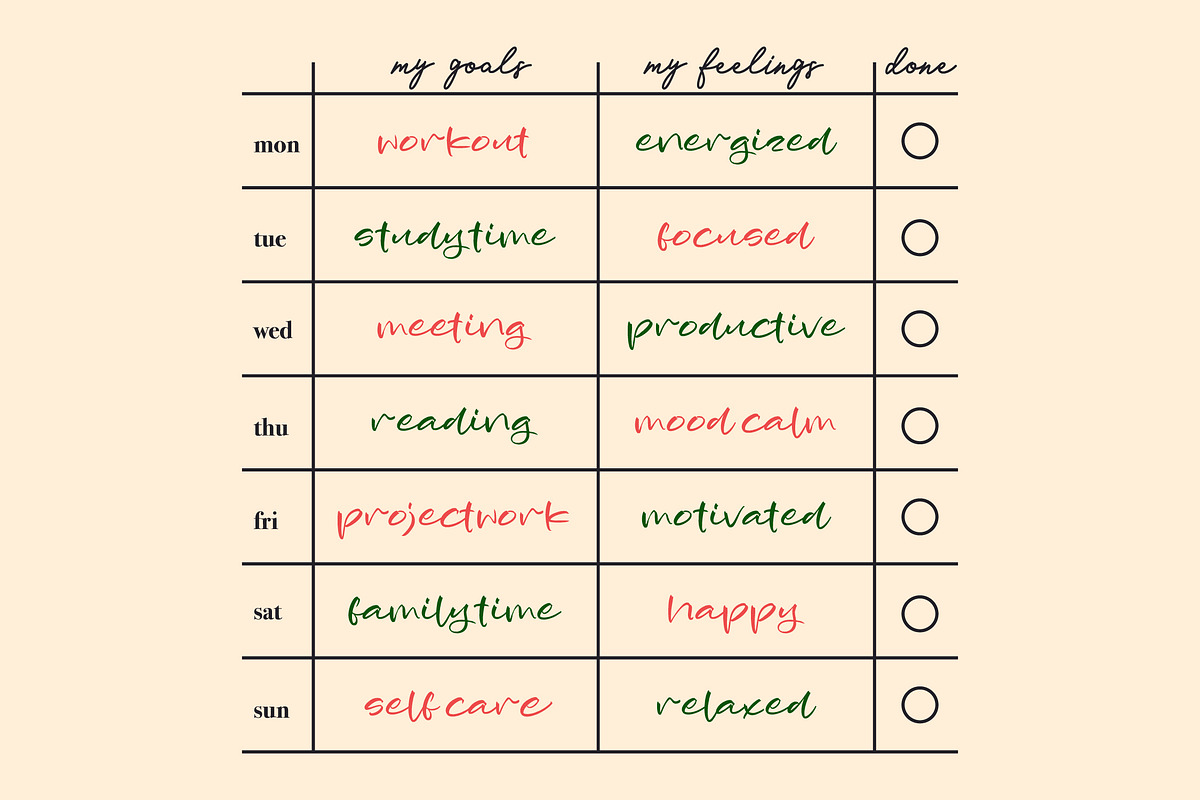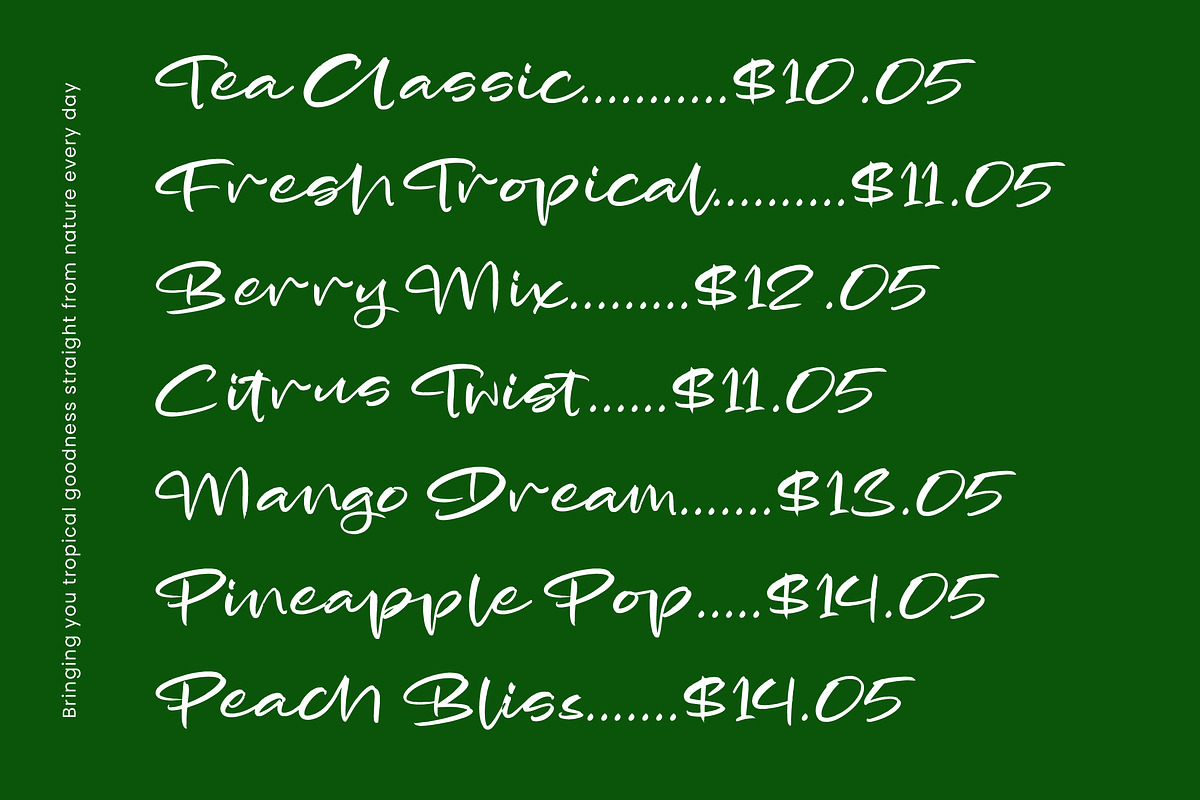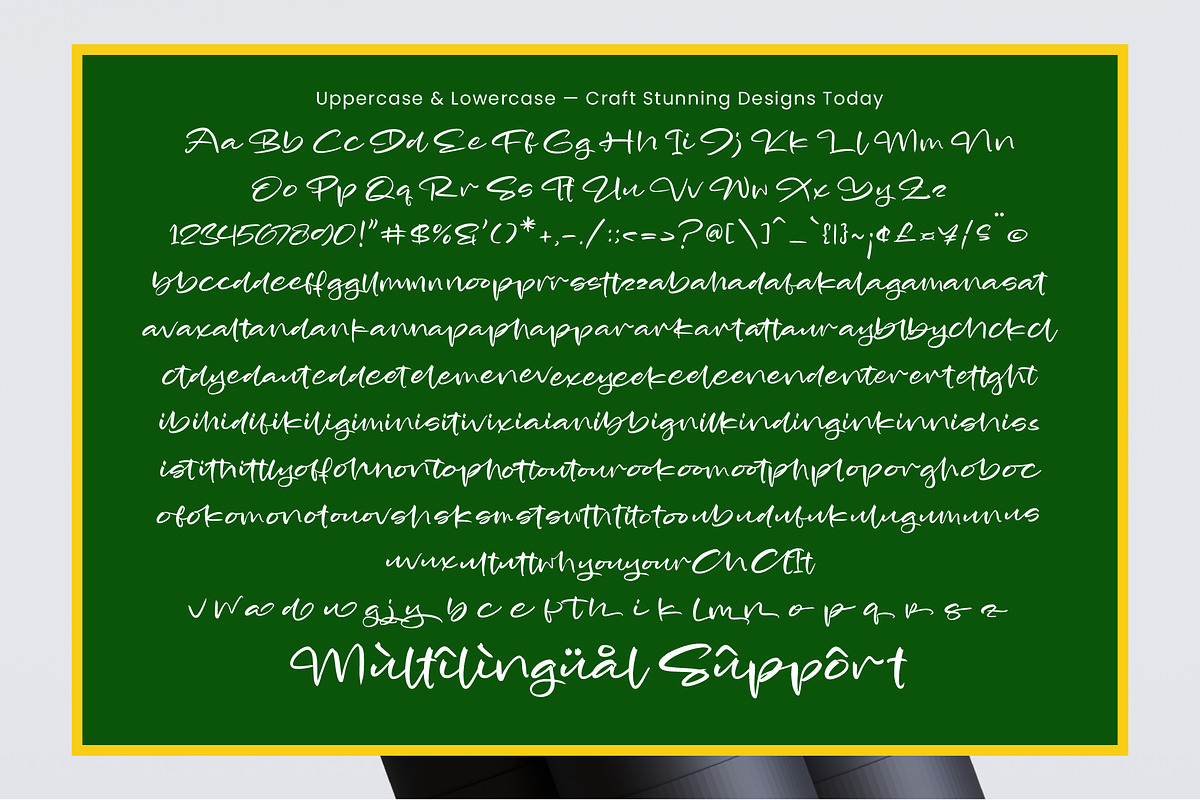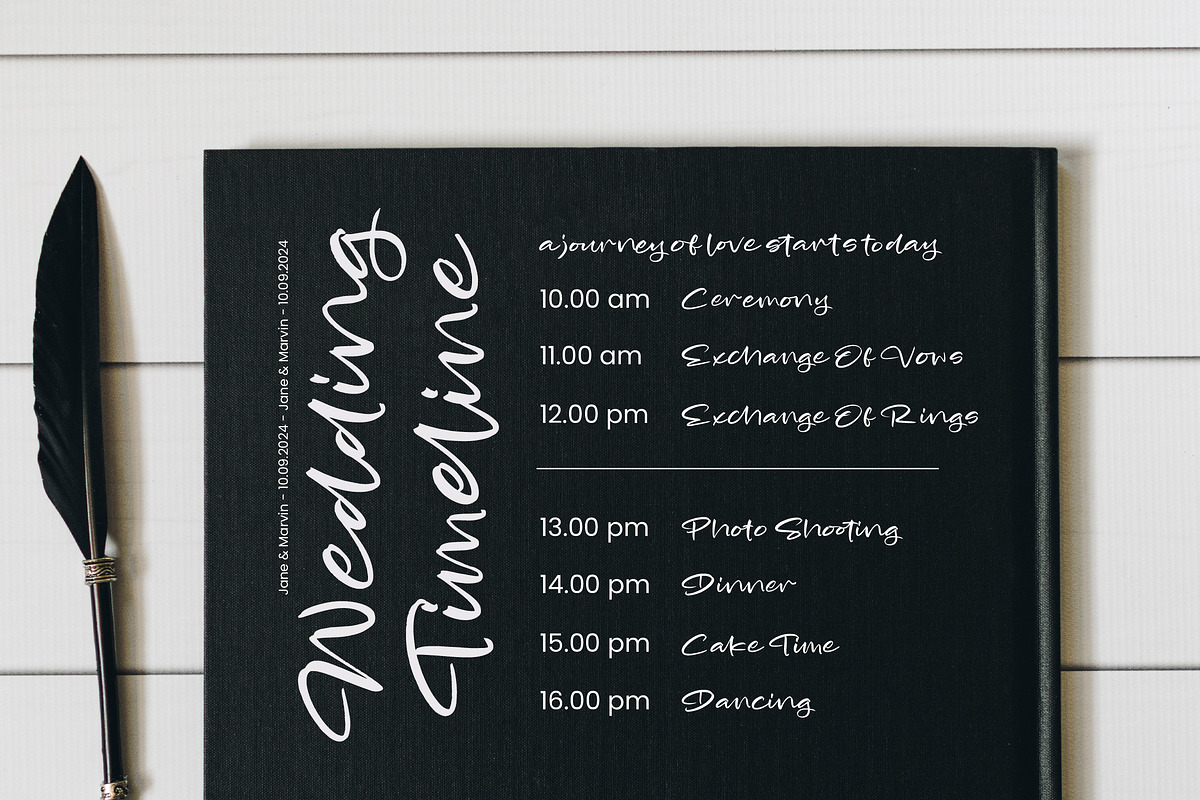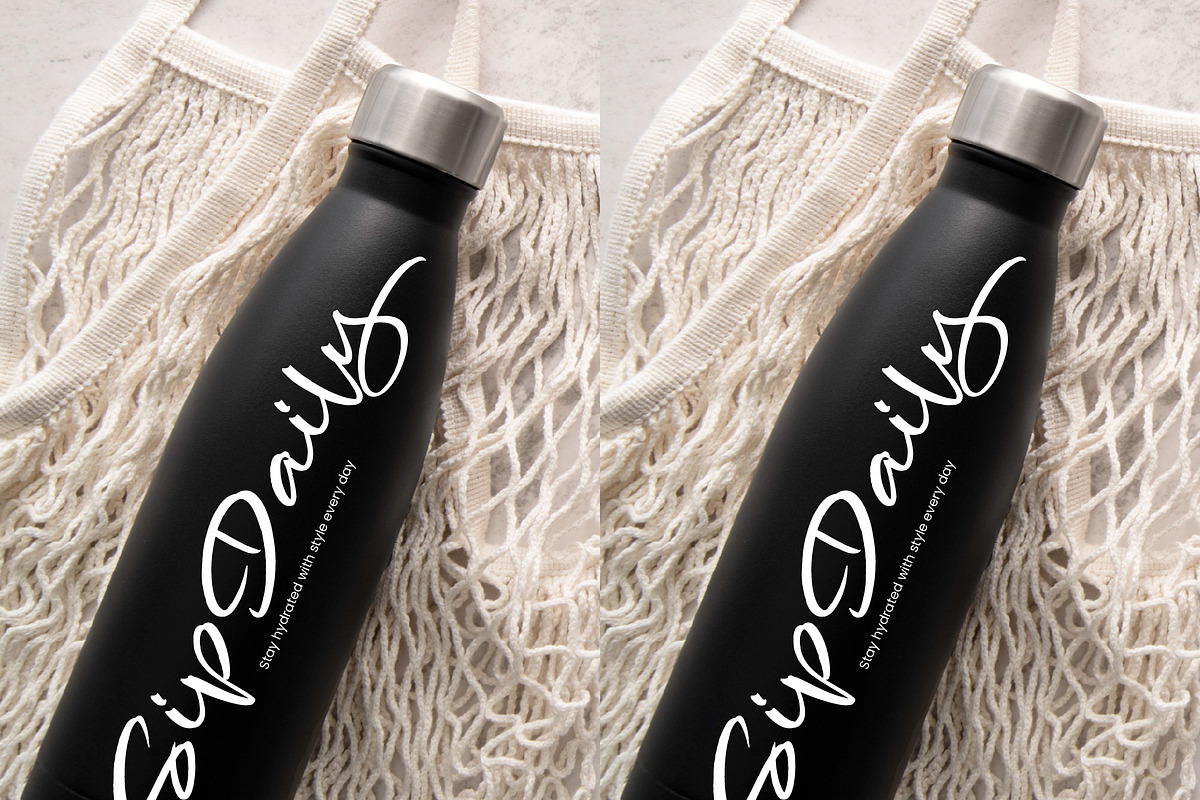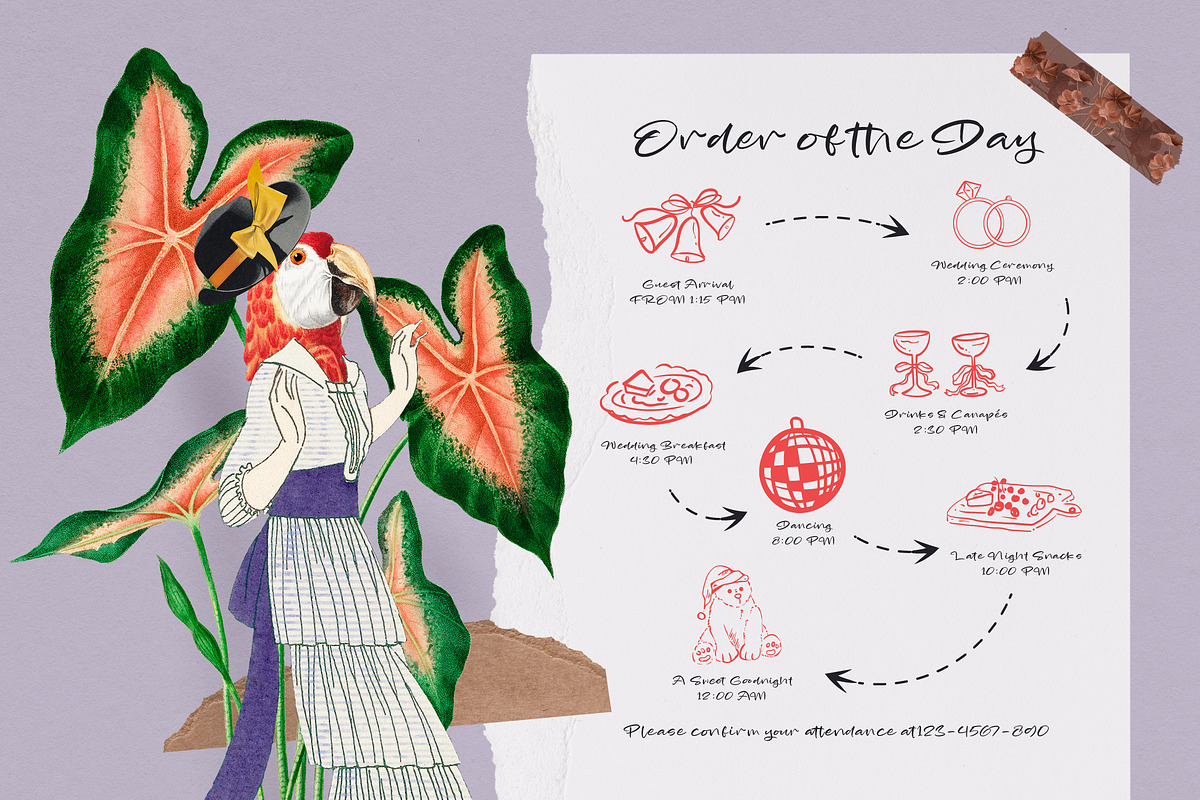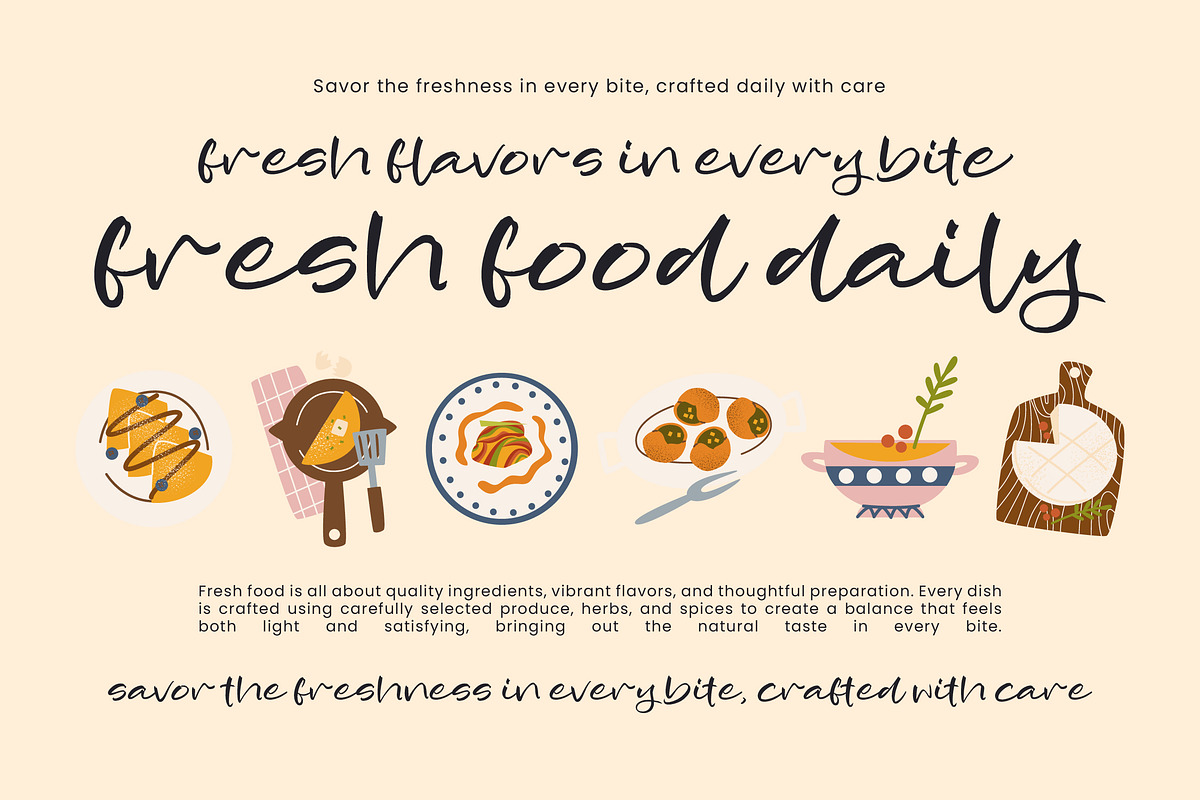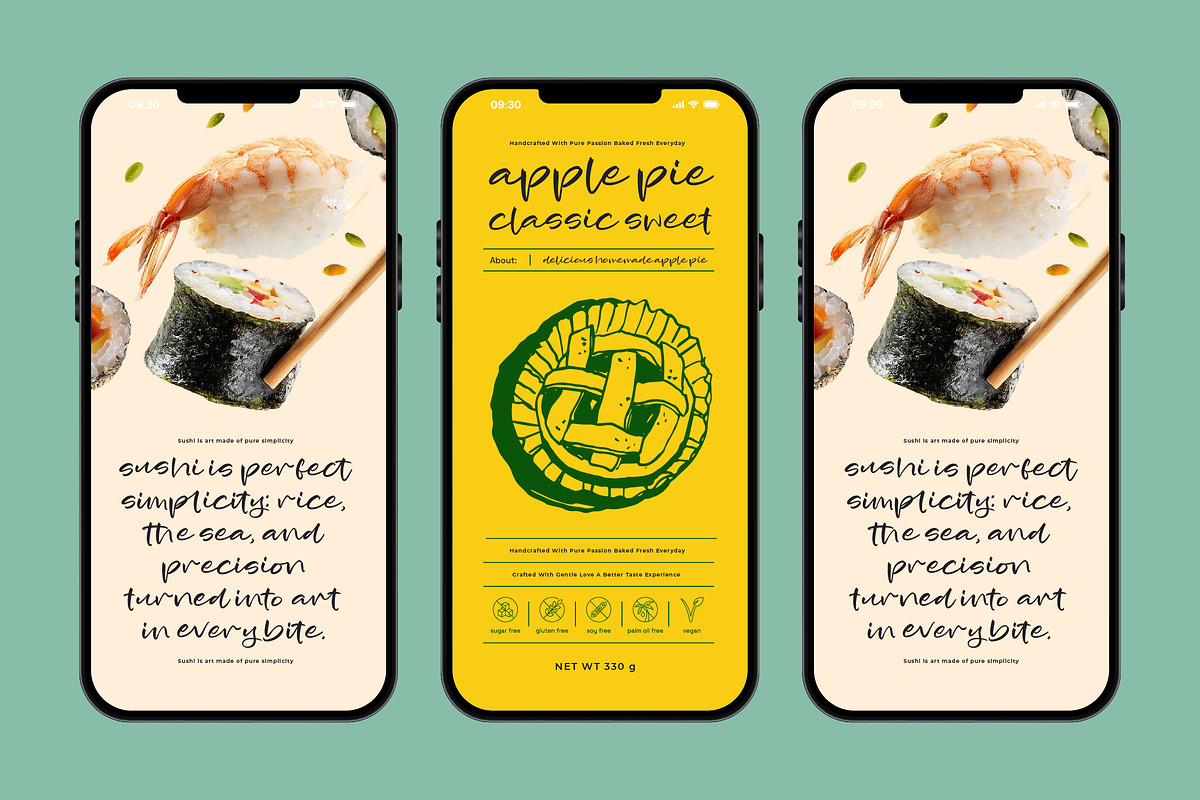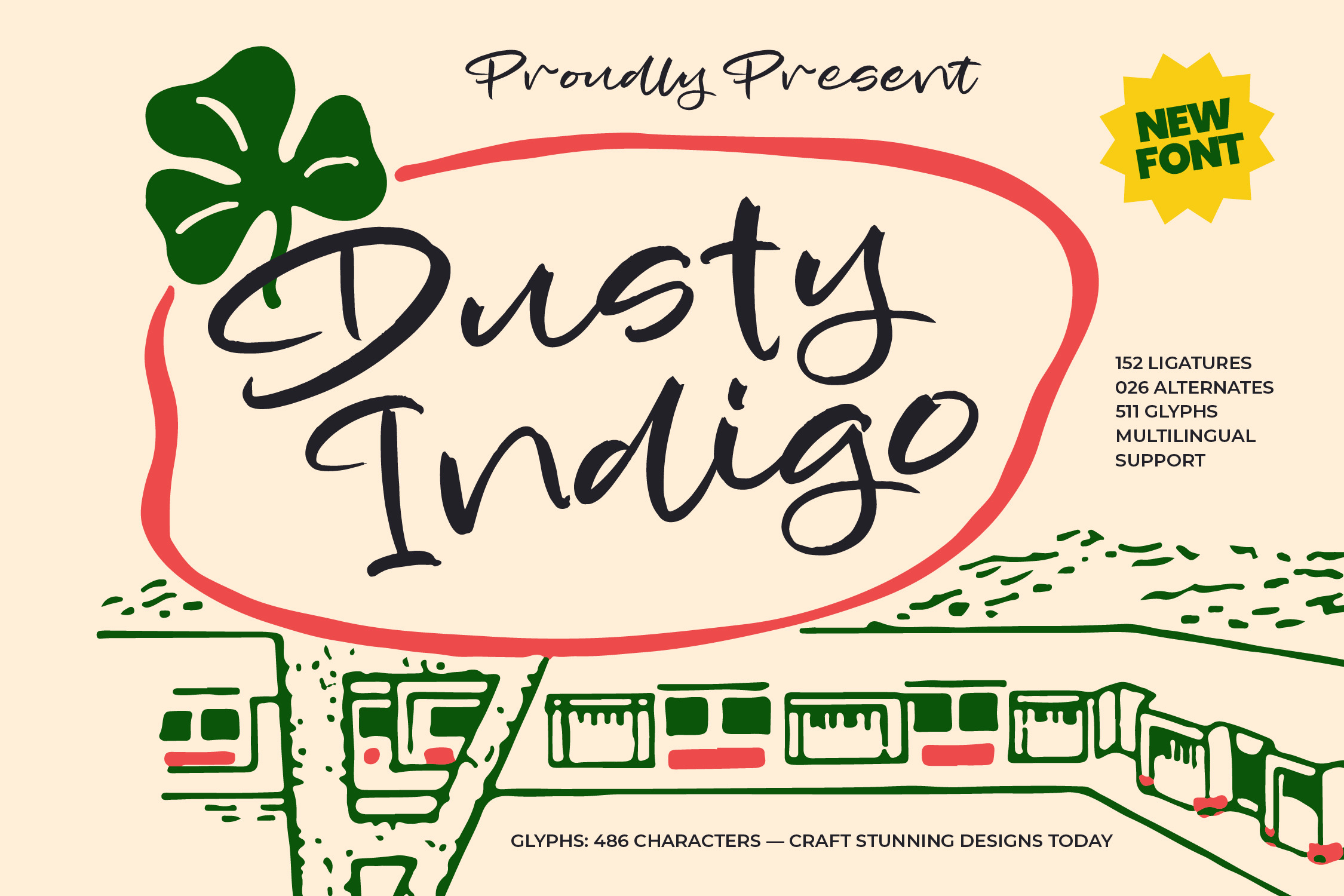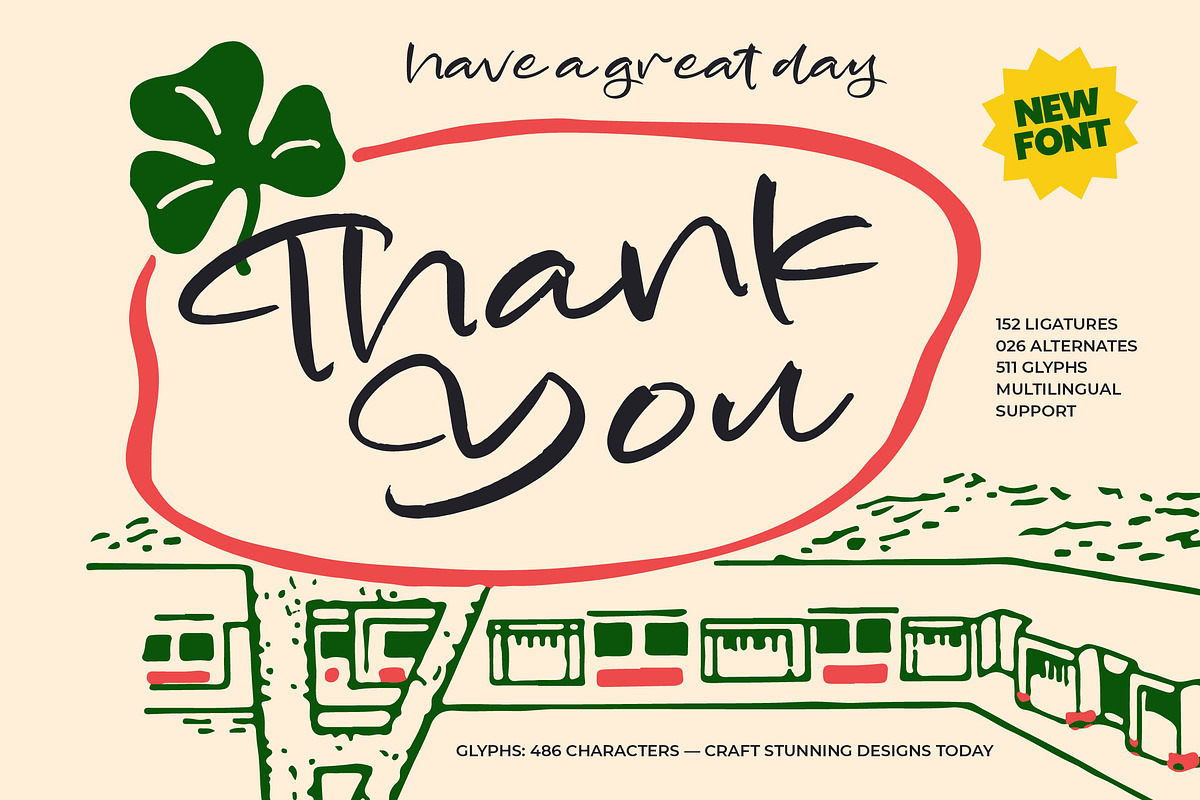
Dusty Indigo Handwritten Script Font
Dusty Indigo – Handwritten Script Font , Elevate your creative projects with the raw, authentic charm of Dusty Indigo – Handwritten Script Font. This typeface captures the essence of modern calligraphy through its expressive brush strokes and organic flow, offering a handcrafted aesthetic that feels both personal and professional. By blending artistic flair with clean legibility, Dusty Indigo – Handwritten Script Font ensures your message stands out with a unique, human touch that resonates deeply with contemporary audiences.
Precision meets personality in this feature-rich typeface designed for the high-end creator. With its extensive multilingual support, Dusty Indigo – Handwritten Script Font adapts seamlessly across global markets, making it incredibly versatile for international projects. Boasting over 500 glyphs and 152 ligatures, Dusty Indigo – Handwritten Script Font provides the technical flexibility needed to achieve a truly custom, bespoke appearance in any digital or print medium.
Unlock endless creative possibilities across a wide range of ideal applications. This font is perfect for luxury branding, organic packaging, editorial design, and lifestyle photography overlays. Whether you are crafting premium wedding invitations or engaging social media content, Dusty Indigo – Handwritten Script Font adds a sophisticated edge and a sense of visual storytelling that significantly elevates the perceived value of your design assets.
Finalize your design toolkit with a typeface that masterfully balances rustic elegance and commercial appeal. By incorporating a vast selection of stylistic alternates, Dusty Indigo – Handwritten Script Font allows for effortless customization and natural typographic flow. Choose Dusty Indigo – Handwritten Script Font to give your next campaign a distinctive identity and a memorable presence, ensuring a lasting impact within a competitive global landscape.